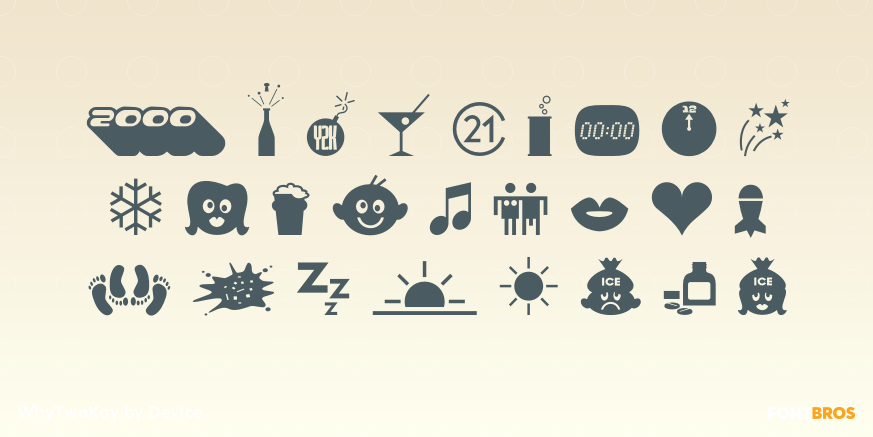
WhyTwoKay
Font Family by Device Fonts
WhyTwoKay is a dingbat font family from Device with a distinctly graphic, symbol-driven feel. Instead of functioning like a traditional text face, it delivers a compact set of illustrated characters that can add a bold, playful, or conceptual accent to layout work.
With 1 font style and 33 glyphs shown on the product page, this release is well suited to designers looking for ready-made visual elements for posters, branding accents, packaging, social graphics, or other display-driven compositions where icons and marks can do the talking.
If your project needs decorative shapes with a more expressive, typographic presentation, this font offers a simple way to introduce character without relying on standard letterforms.